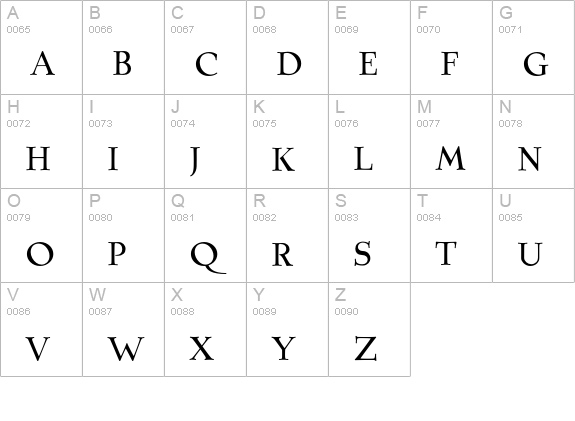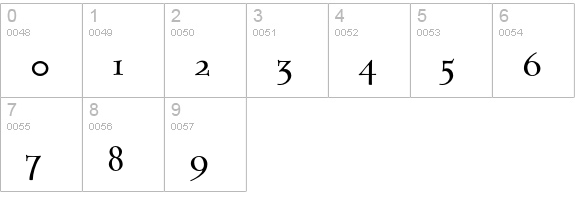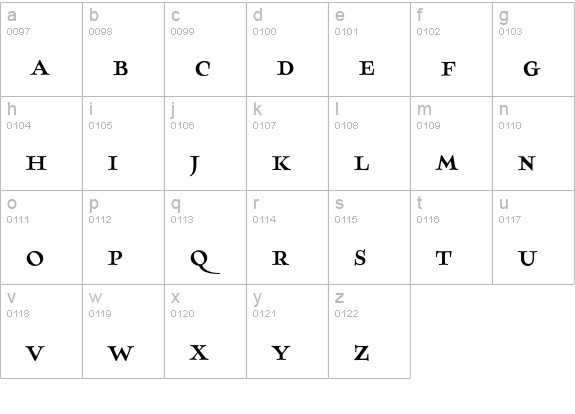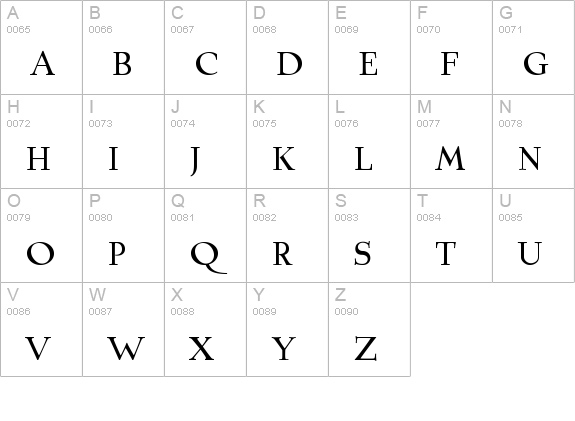
Testament-SmallCaps Font Details
Testament-SmallCaps font is a stunning typeface that exudes elegance and sophistication. With its meticulously crafted small capital letters, this font adds a touch of class to any project or design. The timeless and classic appeal of Testament-SmallCaps makes it a perfect choice for formal invitations, book covers, branding materials, and more. What makes Testament-SmallCaps even more appealing is that it is freely available to download at FontsMarket.com. This means that you can easily access this exquisite font without any cost. Whether you are a professional designer or an amateur enthusiast, Testament-SmallCaps offers you the opportunity to elevate your creations without breaking the bank. The intricate details and refined curves of each letter in Testament-SmallCaps showcase the dedication and craftsmanship that have gone into its creation. The font's consistent and balanced strokes ensure legibility and readability at any size, making it suitable for both print and digital applications. With Testament-SmallCaps, you can effortlessly convey a sense of tradition, sophistication, and prestige. Its versatility allows it to adapt to various design styles, from elegant and luxurious to minimalist and contemporary. Whether you're working on a wedding invitation, a corporate logo, or a magazine layout, Testament-SmallCaps is sure to captivate and impress. So why wait? Take advantage of the opportunity to freely download Testament-SmallCaps at FontsMarket.com and unlock the potential of this remarkable typeface. Elevate your designs, enhance your branding, and make a lasting impression with the timeless beauty of Testament-SmallCaps font.